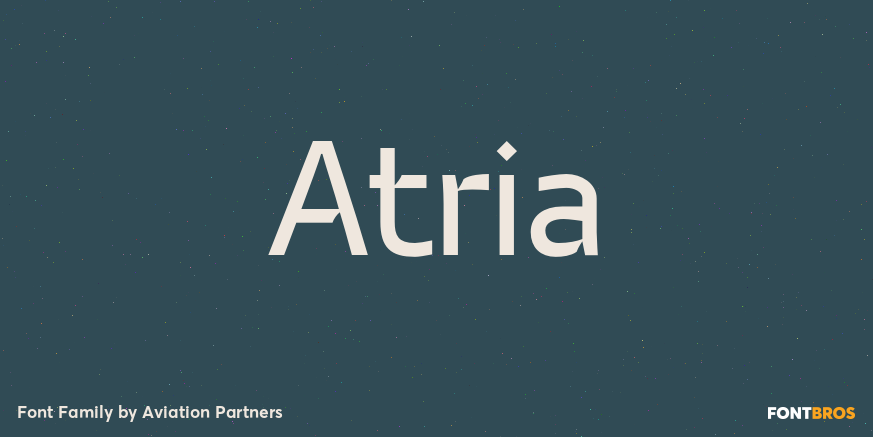
HomeFont BrosSans SerifAtria Sans Serif Atria FacebookXPinterestWhatsApp 1 of 1 About Atria A modern sans-serif, Atria is pinched at the junction of certain strokes, providing a distinctive appearance and aiding screen definition at small sizes. The glyphs cover Baltic languages and Cyrillic.  DOWNLOAD NOW People also explored Elle Font Hockey Font The Hampshire Font Battnise – Brush Font Sunday Farmhouse Font Capella Font Red Bull Font Try New Font Moon Night Font 290 0 TagsAtriaAtria Font Previous articlePink FlamingoNext articleMikal LEAVE A REPLY Cancel reply Comment: Please enter your comment! Name:* Please enter your name here Email:* You have entered an incorrect email address! Please enter your email address here Website: Save my name, email, and website in this browser for the next time I comment. Personal Use Free Urkelian Personal Use Free Read more about this font Masker Area Personal Use Free Read more about this font Concre Personal Use Free Read more about this font Deco Neue Wilde Personal Use Free Read more about this font BLOG Free Fonts Risk: Why Free Fonts Can Be Dangerous for Designers Free Fonts Risk: Why Free Fonts Can Be Dangerous for Designers Using free fonts is a common practice in web and graphic design. However, the... The 10 Best Handwriting Fonts to Add Personality to Your Designs Transform Your Website: Elevate Your Typography with 7 Best Web Font Generators Elegant Wedding Invitation Fonts – Handwritten & Script Fonts